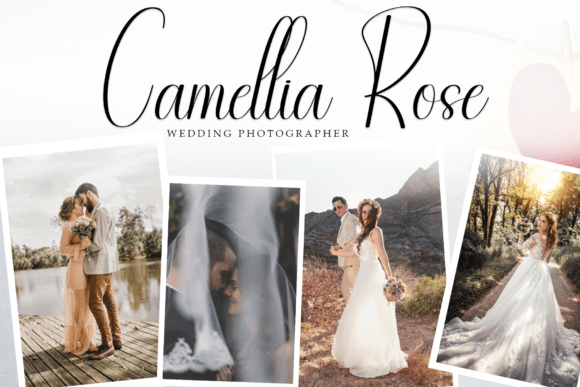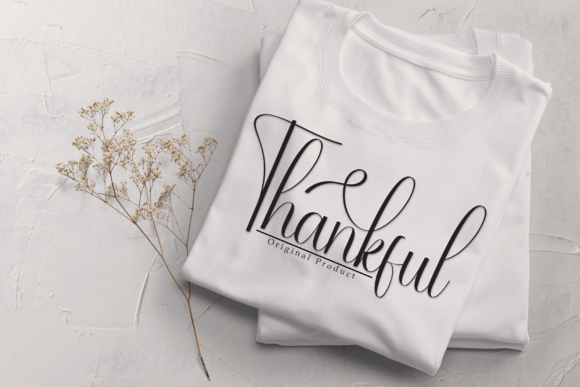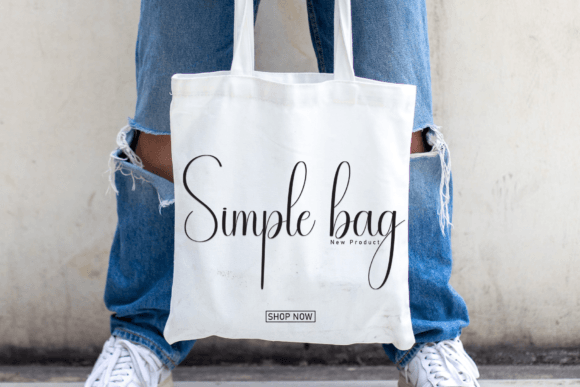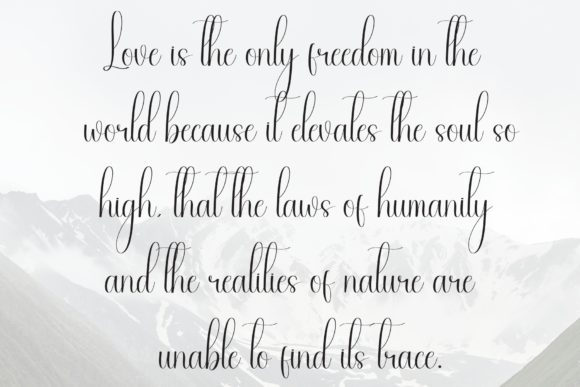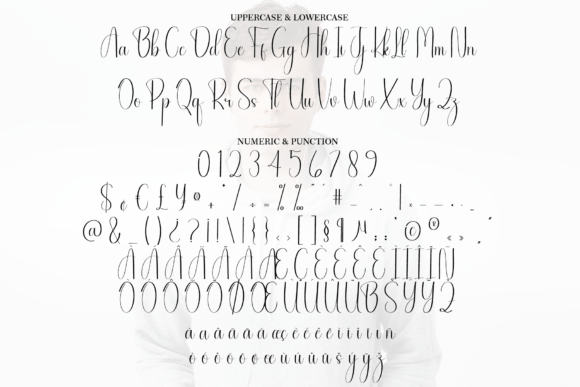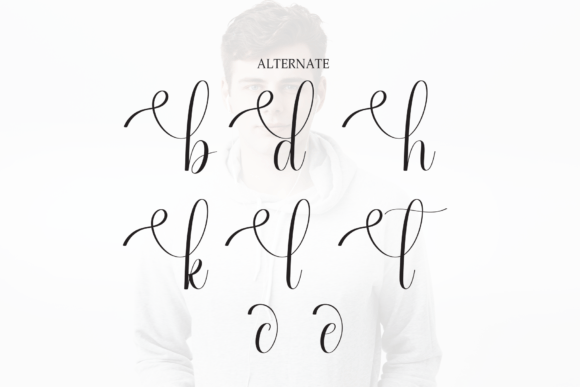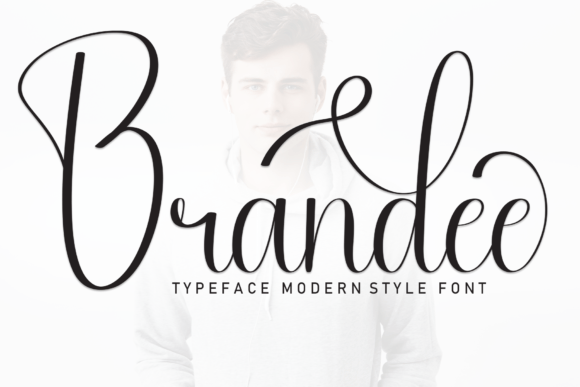
Introducing Brandee Font: The Sweet and Friendly Handwritten Font for Your Design Needs
Are you looking for a font that can add a personal touch to your designs? Look no further than Brandee Font, a sweet and friendly handwritten font that’s perfect for creating beautiful wedding invitations, cards, and more. In this article, we’ll take a closer look at the features and benefits of Brandee Font, and explore how you can use it to elevate your designs.
What is Brandee Font?
Brandee Font is a fresh and casual handwritten font that’s designed to bring a touch of warmth and personality to your designs. With its smooth and flowing lines, Brandee Font is ideal for creating a wide range of designs, from wedding invitations and cards to social media graphics and more.
Key Features of Brandee Font
- Sweet and Friendly Design: Brandee Font features a sweet and friendly design that’s perfect for creating designs that require a personal touch.
- Handwritten Style: With its handwritten style, Brandee Font adds a touch of warmth and personality to your designs.
- Fresh and Casual: Brandee Font is a fresh and casual font that’s perfect for creating designs that require a relaxed and informal feel.
- High-Quality Letters: Brandee Font features high-quality letters that are crisp and clear, making it perfect for use in a wide range of designs.
Uses for Brandee Font
Brandee Font is a versatile font that can be used in a wide range of designs, including:
- Wedding Invitations: Brandee Font is perfect for creating beautiful wedding invitations that set the tone for your special day.
- Cards: Use Brandee Font to create personalized cards for birthdays, holidays, and other special occasions.
- Social Media Graphics: Brandee Font is a great choice for creating social media graphics that require a personal touch.
- Logos and Branding: Use Brandee Font to create a unique and memorable logo for your business or brand.
Benefits of Using Brandee Font
There are many benefits to using Brandee Font in your designs, including:
- Unique and Memorable: Brandee Font is a unique and memorable font that will help your designs stand out from the crowd.
- Easy to Read: Brandee Font is easy to read, making it perfect for use in designs that require a clear and concise message.
- Versatile: Brandee Font is a versatile font that can be used in a wide range of designs, from formal to informal.
- High-Quality: Brandee Font is a high-quality font that features crisp and clear letters.
Tips for Using Brandee Font
Here are a few tips for using Brandee Font in your designs:
- Use it for Headings: Brandee Font is perfect for use in headings and titles, where its sweet and friendly design can really shine.
- Pair it with Other Fonts: Brandee Font pairs well with other fonts, making it easy to create a unique and memorable design.
- Experiment with Colors: Brandee Font looks great in a wide range of colors, so don’t be afraid to experiment and find the perfect color for your design.
Brandee Font is a sweet and friendly handwritten font that’s perfect for adding a personal touch to your designs. With its fresh and casual design, high-quality letters, and versatility, Brandee Font is a great choice for designers and crafters who want to create beautiful and memorable designs. Whether you’re creating wedding invitations, cards, or social media graphics, Brandee Font is a great choice for any design that requires a personal touch.